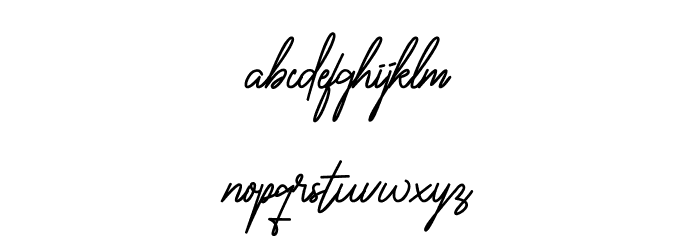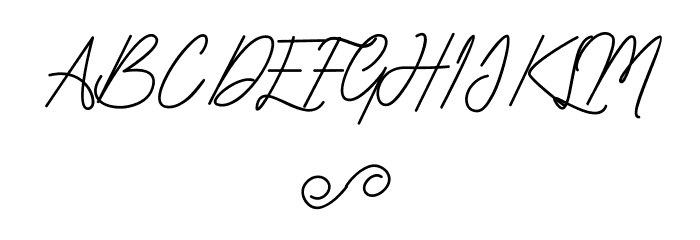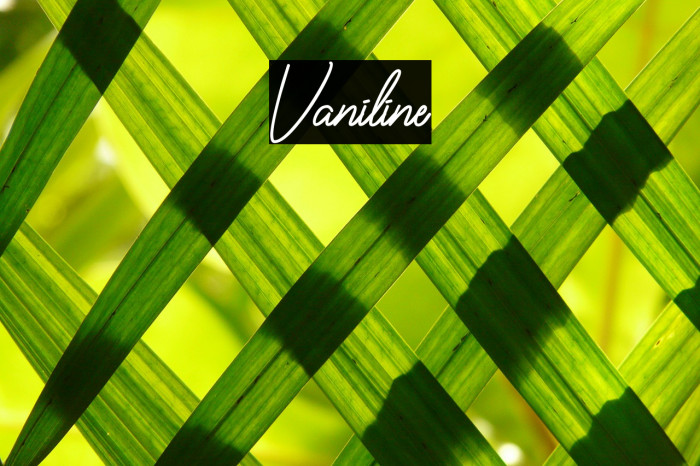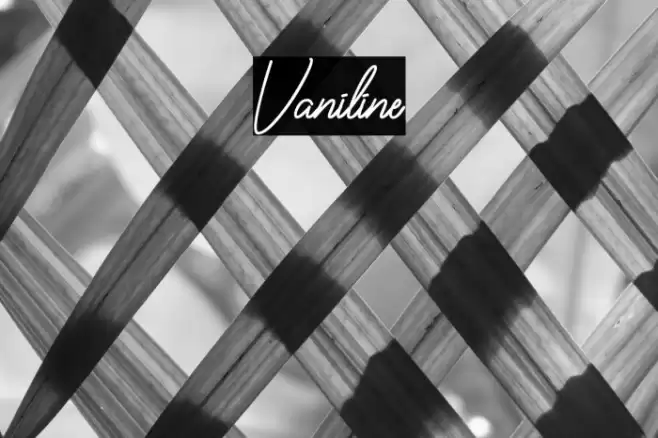
Vaniline2 Font
This font features an elegant and flowing script style, characterized by its cursive, handwritten appearance. The letters are connected, creating a seamless and fluid look that is both sophisticated and artistic. The strokes are thin and delicate, with a consistent flow that enhances readability while maintaining a stylish flair. This font exudes a sense of grace and refinement, making it suitable for formal and decorative applications. The uppercase letters are slightly larger and more ornate, while the lowercase letters maintain a consistent size and style, contributing to the overall harmony of the design.
An elegant, flowing script font with a cursive, handwritten style.
- Proposed Projects: Ideal for wedding invitations, elegant branding, personal stationery, and decorative quotes.
- Category: Script
- Overall Style: Elegant
- Use Case: Logos, Invitations, Decorative text